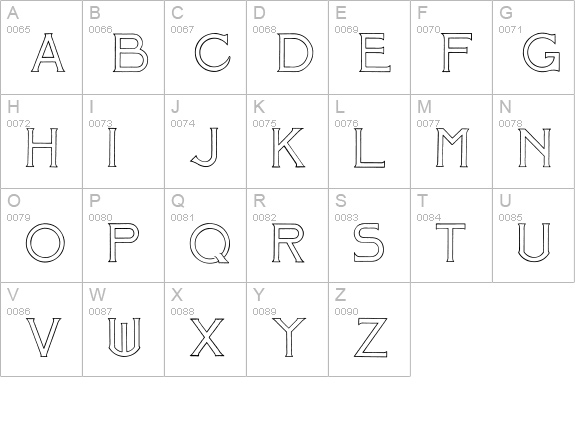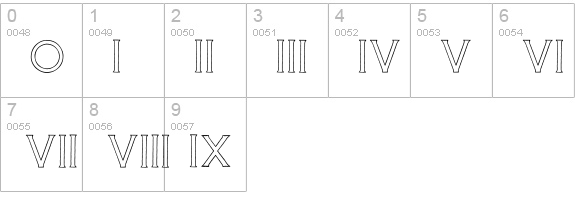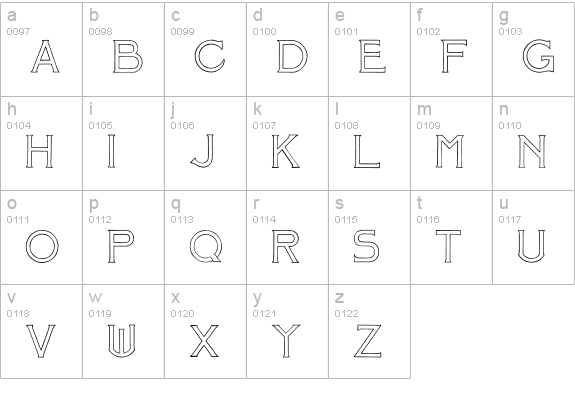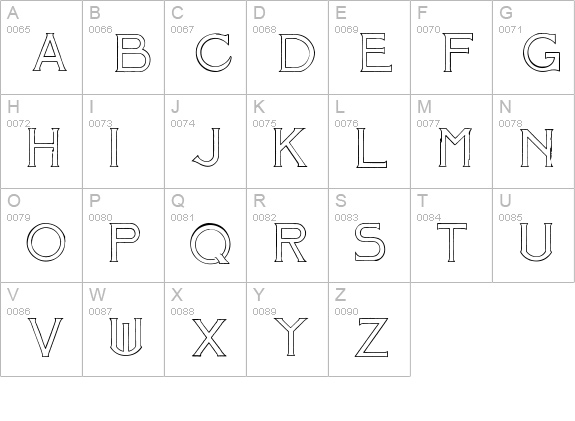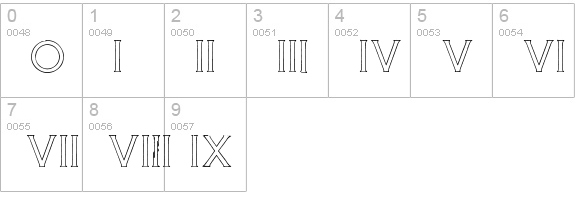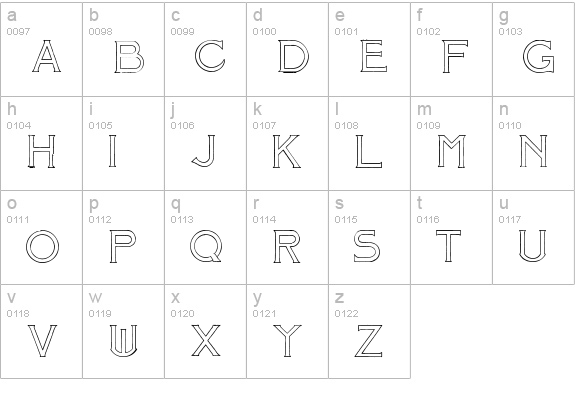
Mosaic_Outline Font Details
Mosaic_Outline font is a striking display typeface that combines modern aesthetic with a touch of elegance. Its unique design features intricate patterns and bold outlines that make each letter stand out. This font is perfect for creating eye-catching headlines, posters, or branding materials that demand attention. The best part is that Mosaic_Outline font is completely free to download at FontsMarket.com. You can easily access this versatile typeface and use it for personal or commercial projects without any restrictions. Don't miss out on the opportunity to add this stunning font to your collection and elevate your design projects to the next level. Download Mosaic_Outline font today and unleash your creativity!